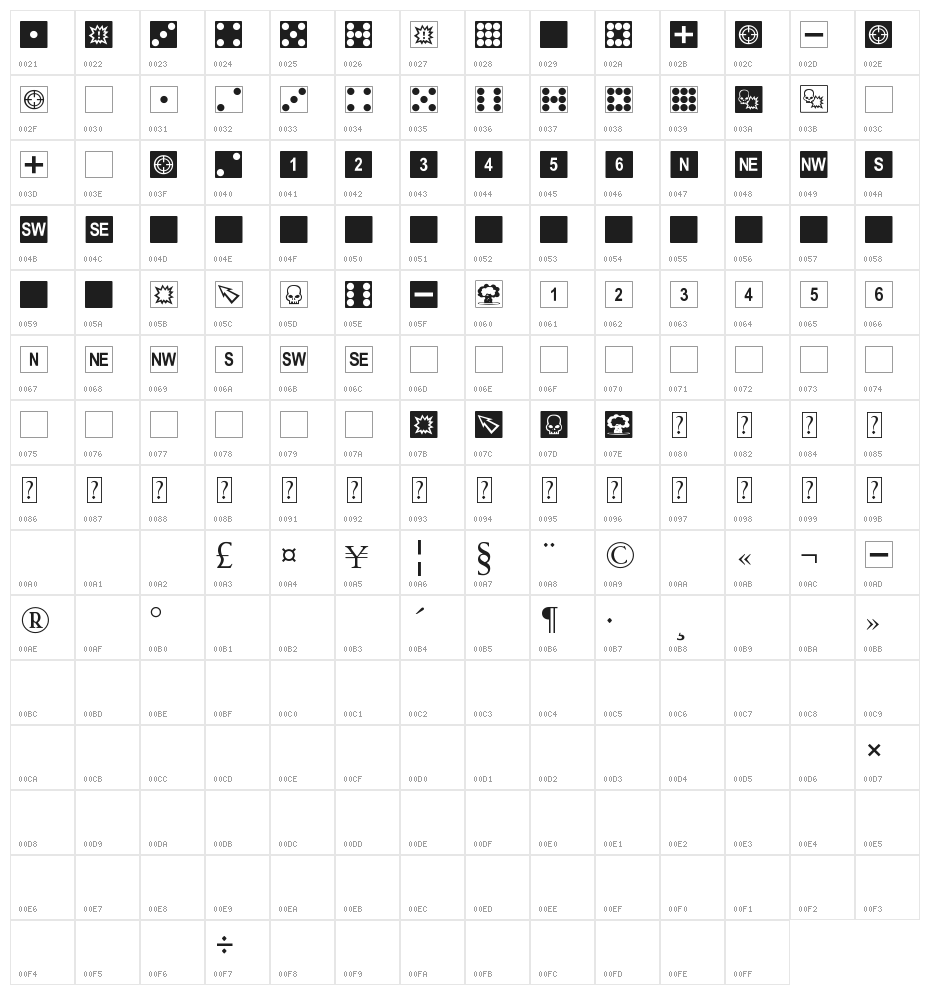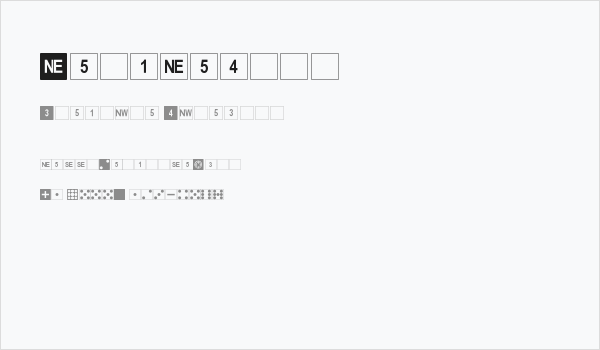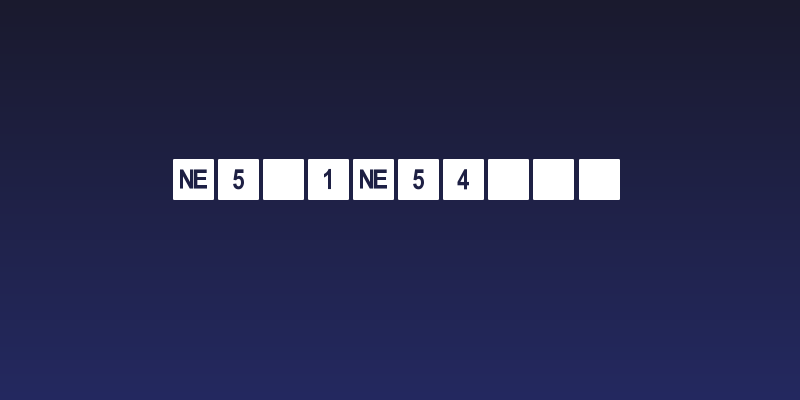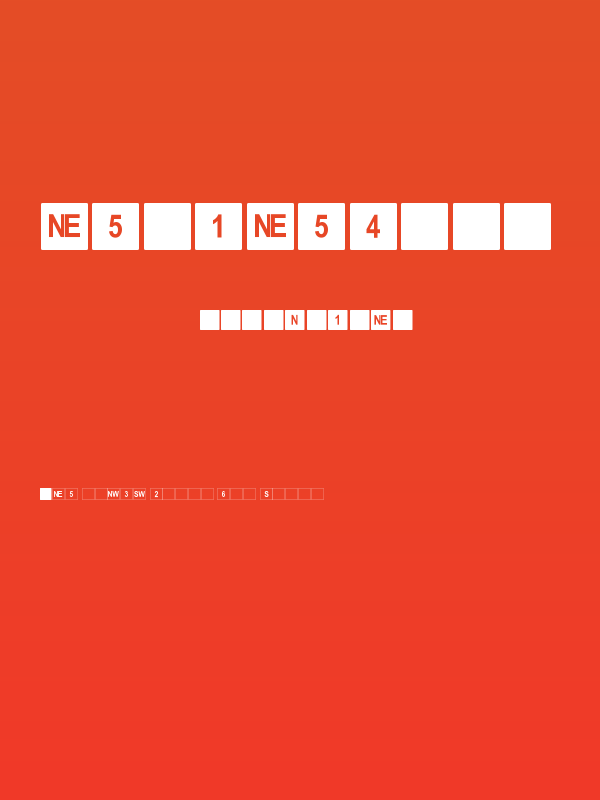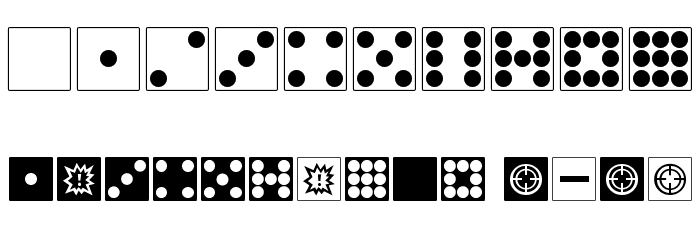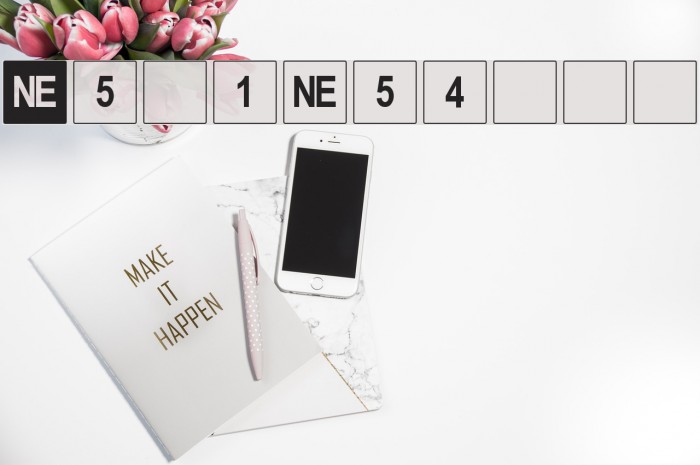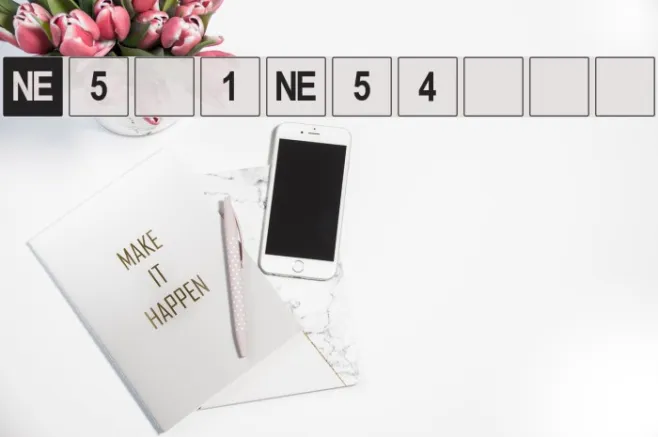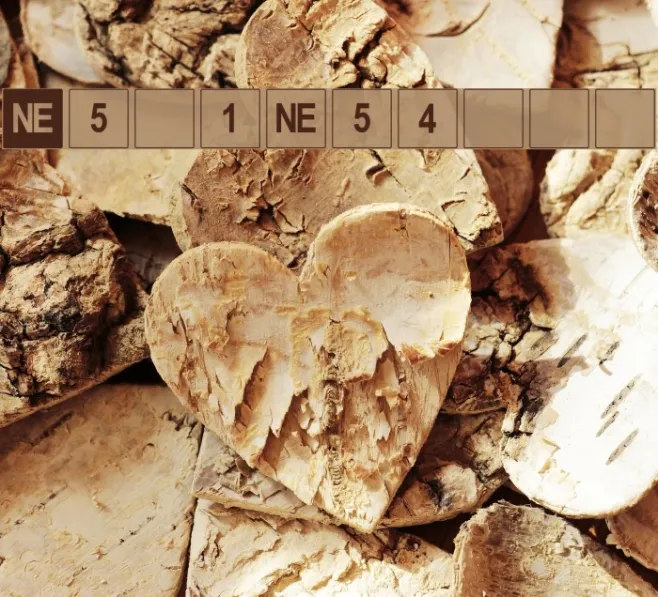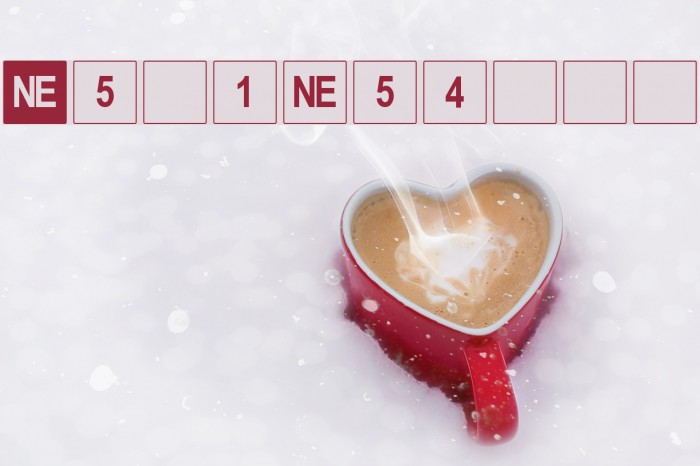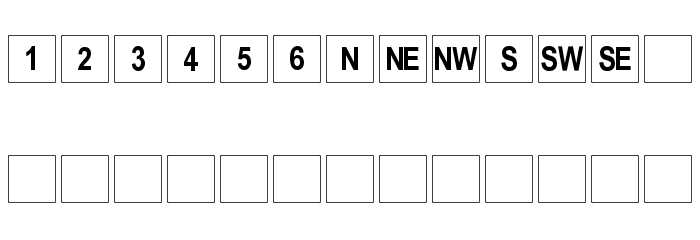
Hexahedron Font
Hexahedron Description
This is not a traditional font but rather a set of symbols and icons that resemble dice faces, directional indicators, and other graphic elements. The design includes numbers from 1 to 6, compass directions such as N, NE, NW, S, SW, SE, and various dice configurations. The symbols are presented in both filled and outlined styles, offering a bold and clear visual representation. These elements are ideal for board games, educational tools, or any project requiring a playful and illustrative approach. The icons are distinct and easily recognizable, making them suitable for both digital and print media.
| Overall Style | Illustrative, Playful |
| Use Case | Icons, Educational tools, Game design |
| Proposed Projects | Board games, educational materials, instructional graphics, playful designs. |